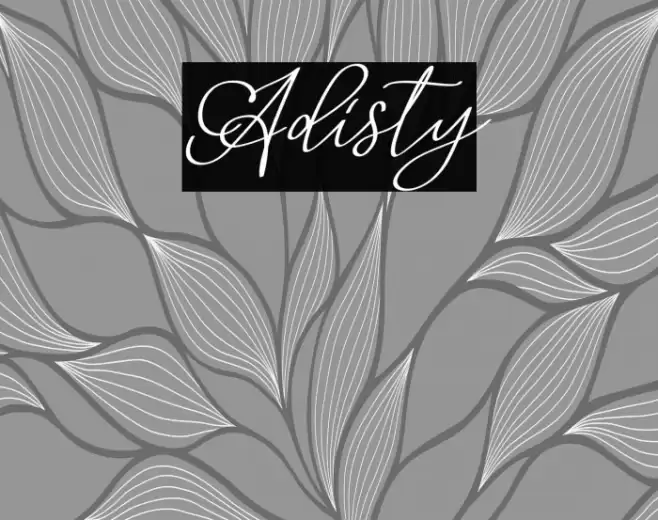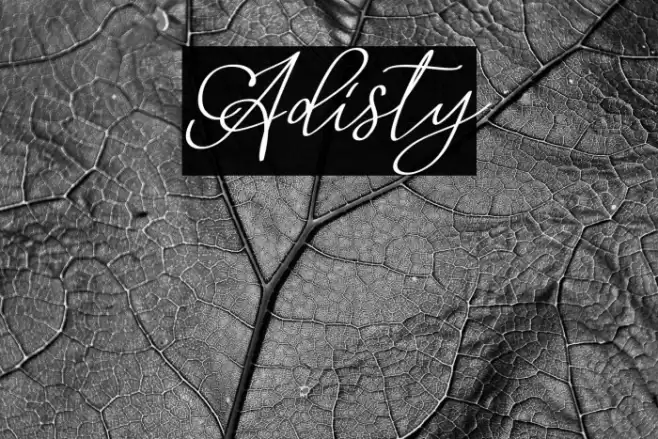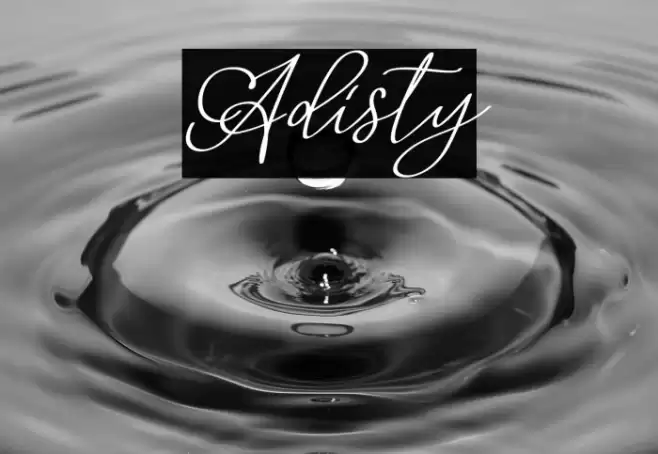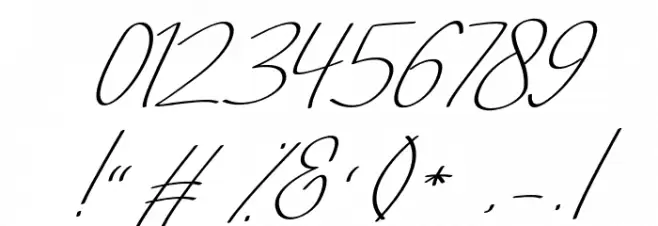
Adisty Font
Adisty Description
This elegant script font features a flowing, cursive style with smooth, interconnected letters that exude sophistication and grace. The uppercase letters are ornate and decorative, while the lowercase letters maintain a consistent fluidity, making it ideal for formal invitations or branding that requires a touch of elegance. The numerals and special characters are designed with the same attention to detail, ensuring a cohesive look across all text elements. The font's delicate strokes and loops create a sense of movement and fluidity, perfect for projects that aim to convey elegance and refinement.
A graceful and elegant script font with flowing, interconnected letters from Uncategorized fonts.
- Proposed Projects: Ideal for wedding invitations, luxury branding, elegant logos, and high-end product packaging.
- Overall Style: Elegant
- Use Case: Logos, Invitations, Branding